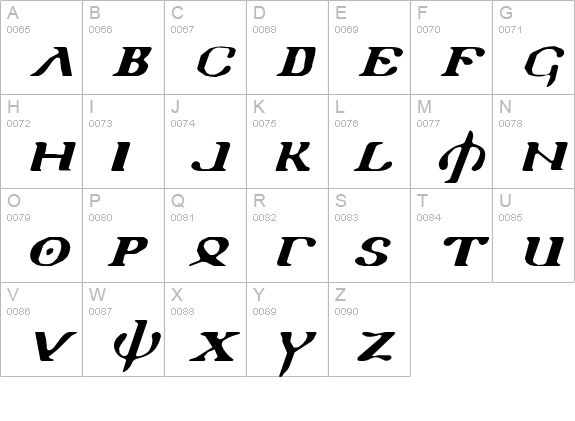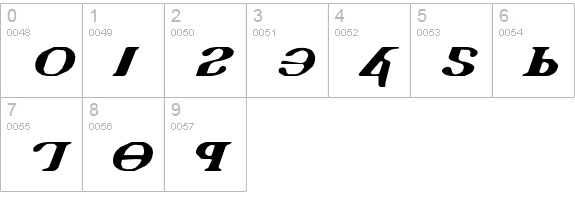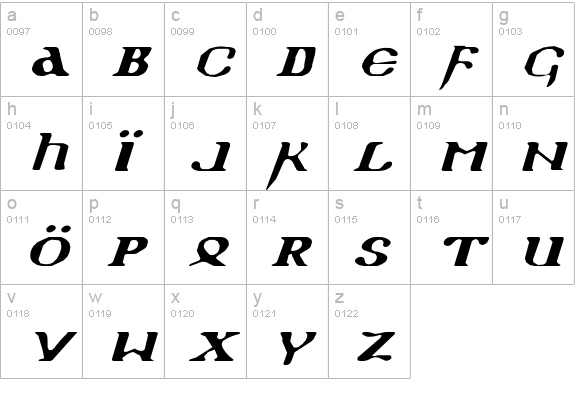
Holy Empire Expanded Italic is a distinctive, extended-width, italic variant in the Holy typeface family \xE2\x80\x94 well suited to design and typography projects.
Holy Empire Expanded Italic font exudes elegance and sophistication with its elongated and gracefully slanted letterforms. The italicized style adds a touch of flair and refinement, making it perfect for adding a touch of class to any design project. The Holy Empire Expanded Italic font is versatile, suitable for both headings and body text, and is sure to make your content stand out. Best of all, this stunning font is available for free download at FontsMarket.com. Don't miss the opportunity to enhance your designs with the timeless beauty of Holy Empire Expanded Italic font.